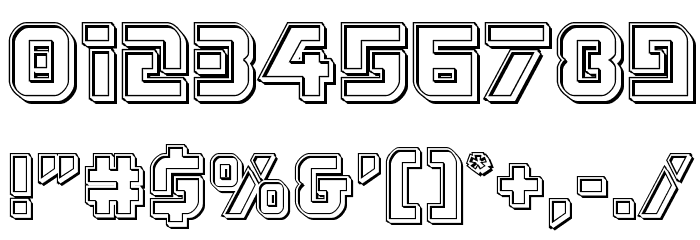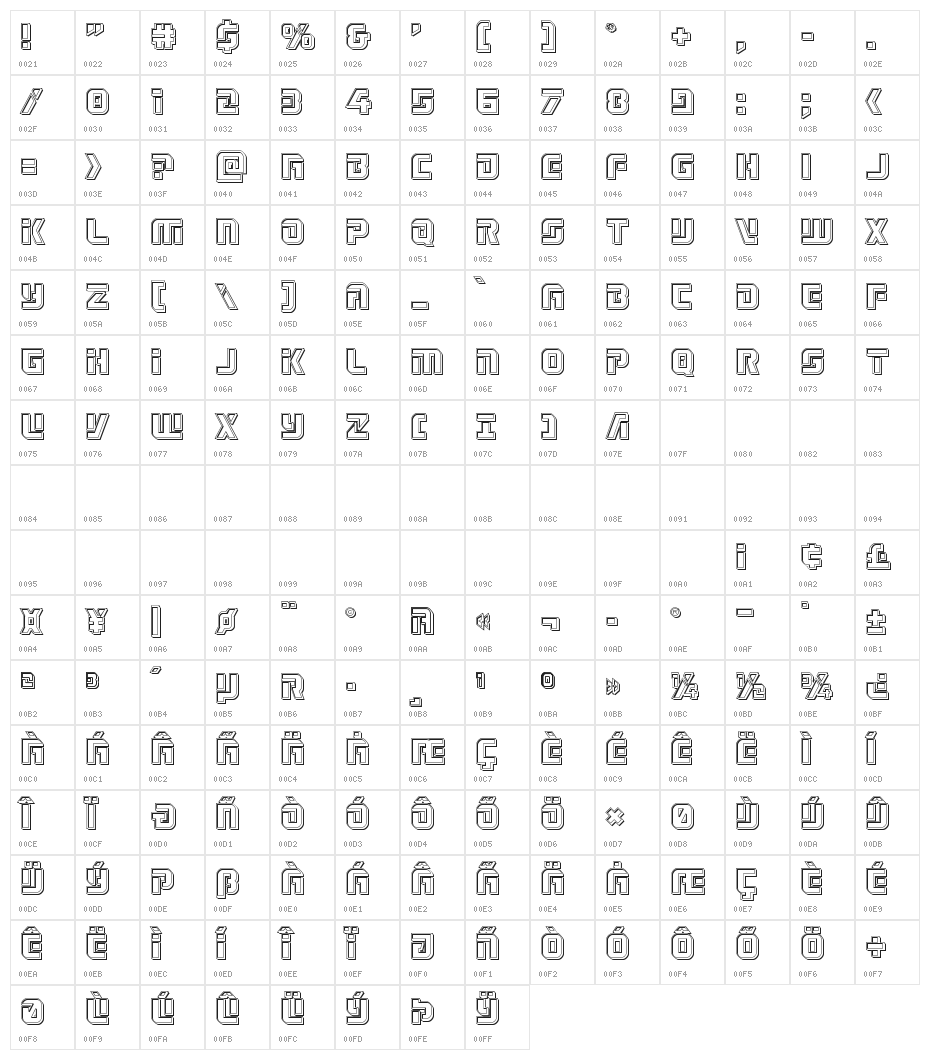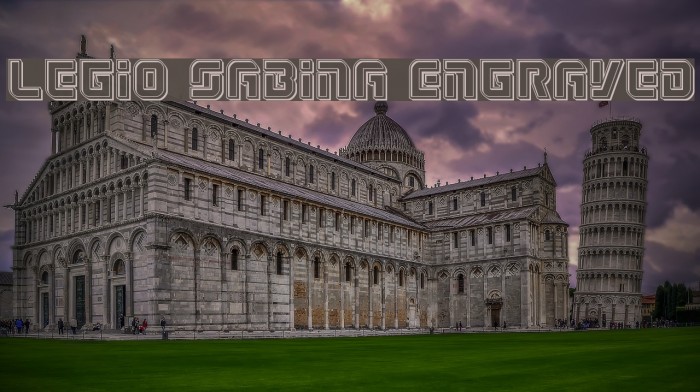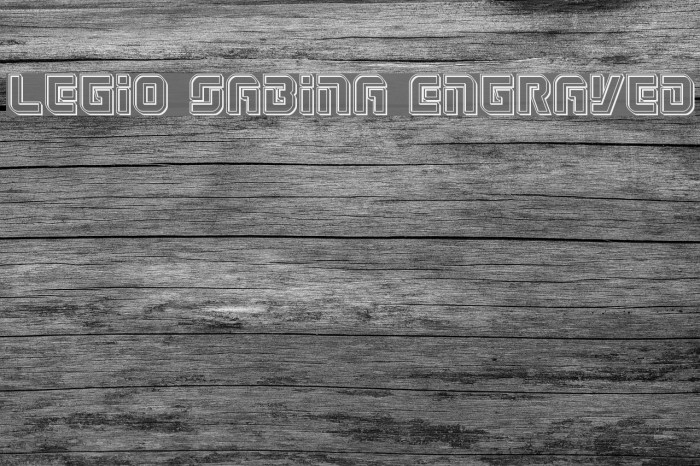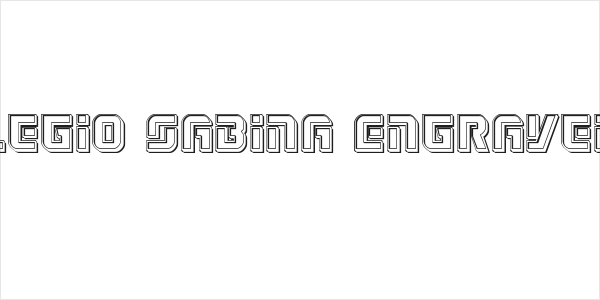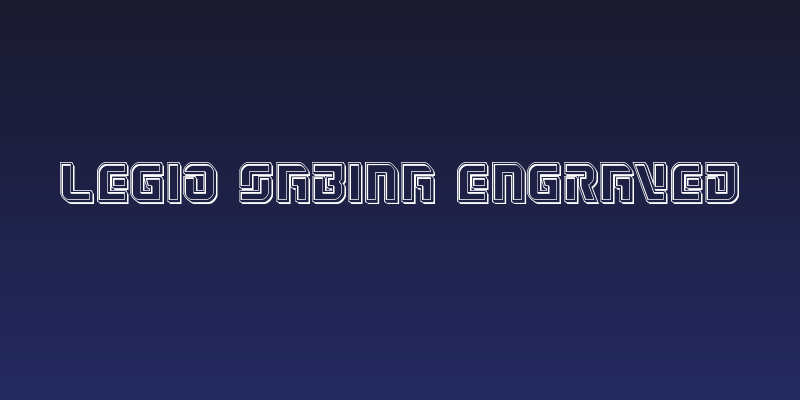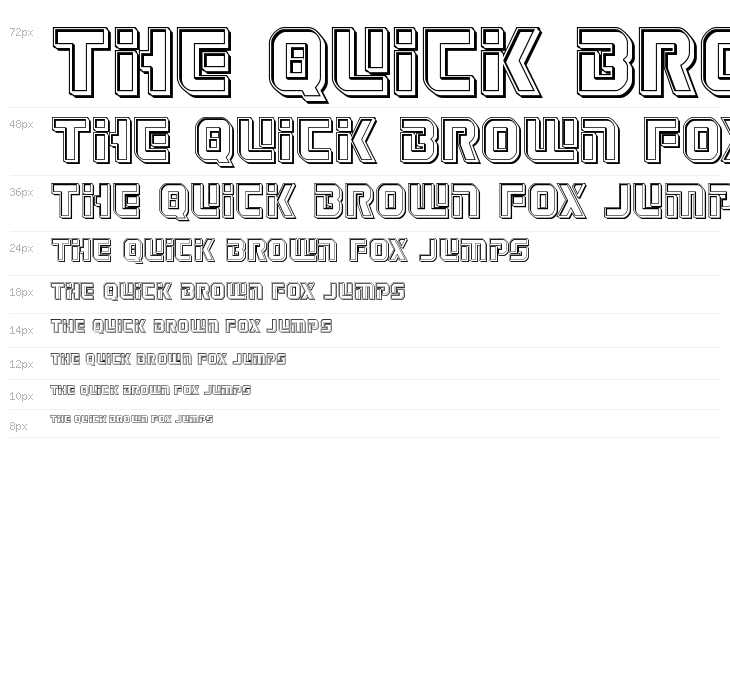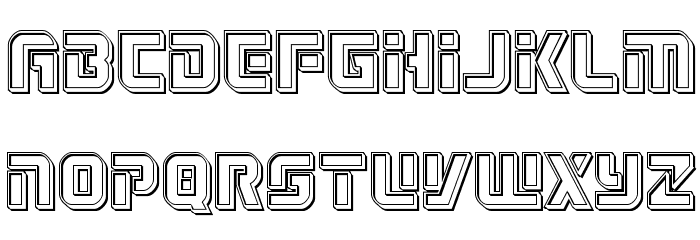
Legio Sabina Engraved Font
Legio Sabina Engraved Description
This font features a bold, geometric design with a distinct engraved appearance. Each character is outlined with a double line, creating a three-dimensional effect that is both modern and striking. The uppercase and lowercase letters share a consistent style, emphasizing symmetry and precision. The numerals and special characters maintain this cohesive look, making the font versatile for various design applications. Its unique style is suitable for projects that require a strong visual impact.
| Proposed Projects | Ideal for branding, poster designs, video game graphics, and any project needing a futuristic or tech-inspired aesthetic. |